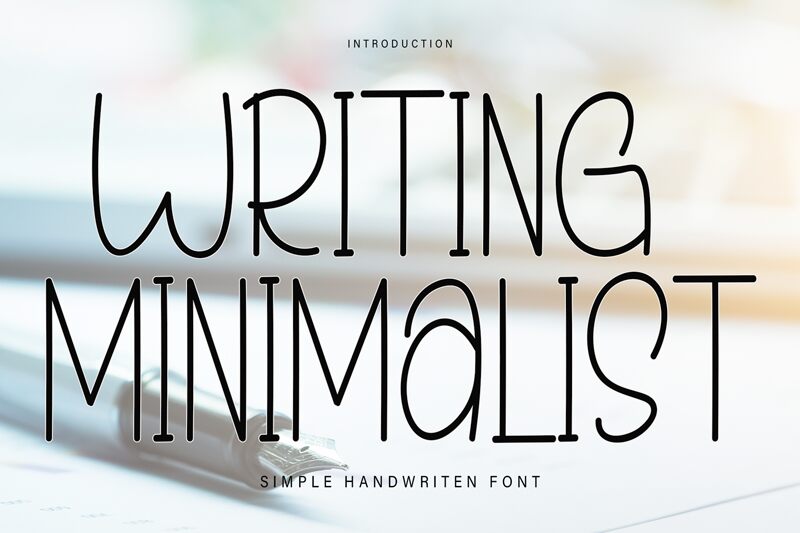
Writing Minimalist
Writing Minimalist, crafted by Etik Fatimah, is a font that evokes the elegance of personal touch with its handwritten style. Its delicate strokes and gentle flourishes encapsulate a sense of intimate expression, making it an exquisite choice for projects that call for a soft, personal touch. This light font dances between clarity and charm, offering an aesthetic that is both pleasing to the eye and inviting to the reader.
The effortless grace of Writing Minimalist lends itself beautifully to invitations, branding for boutique businesses, or any creative work where a touch of human warmth is desired. It stands out in applications where subtlety and sophistication are paramount, allowing designers to convey messages with heartfelt authenticity and stylistic finesse.